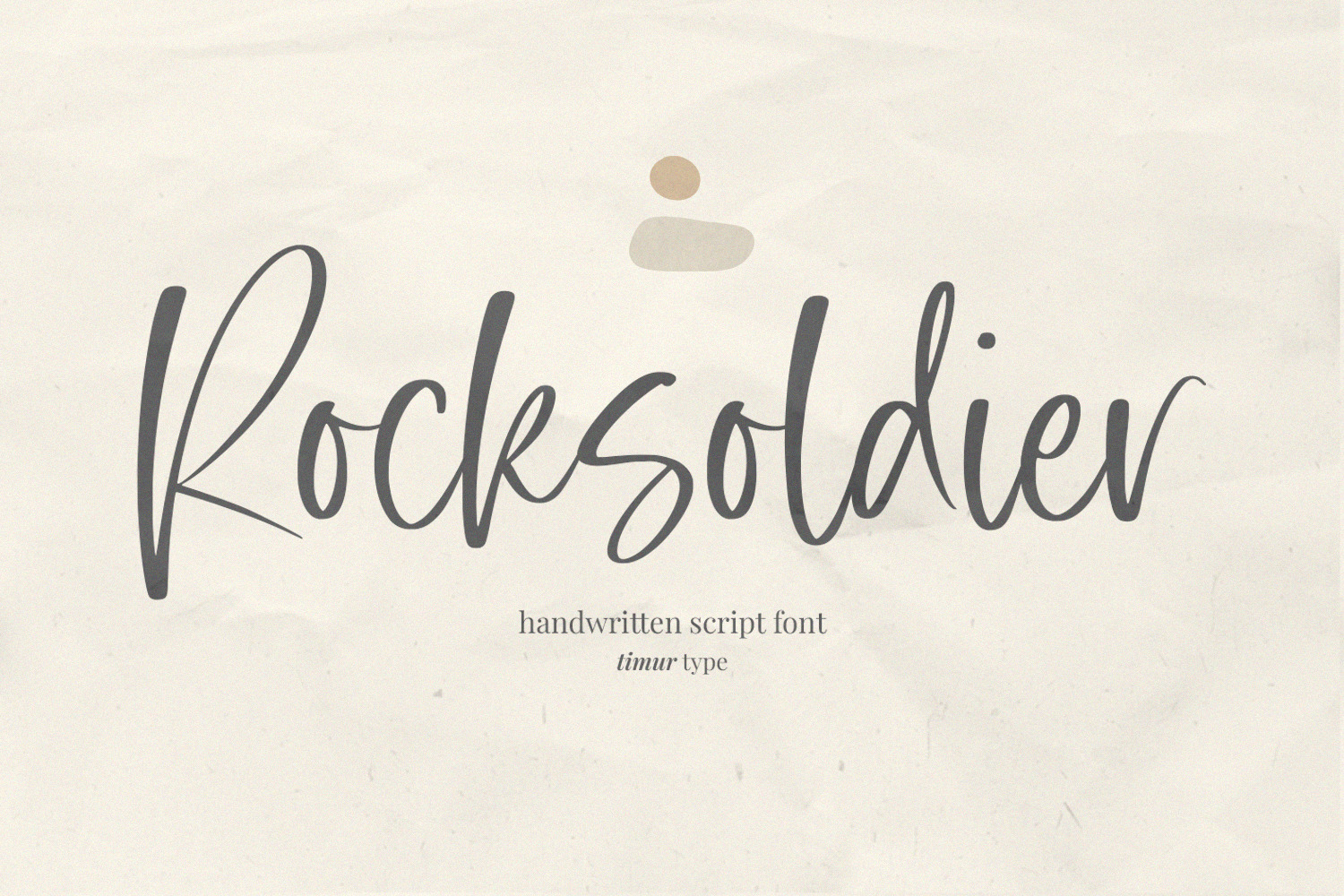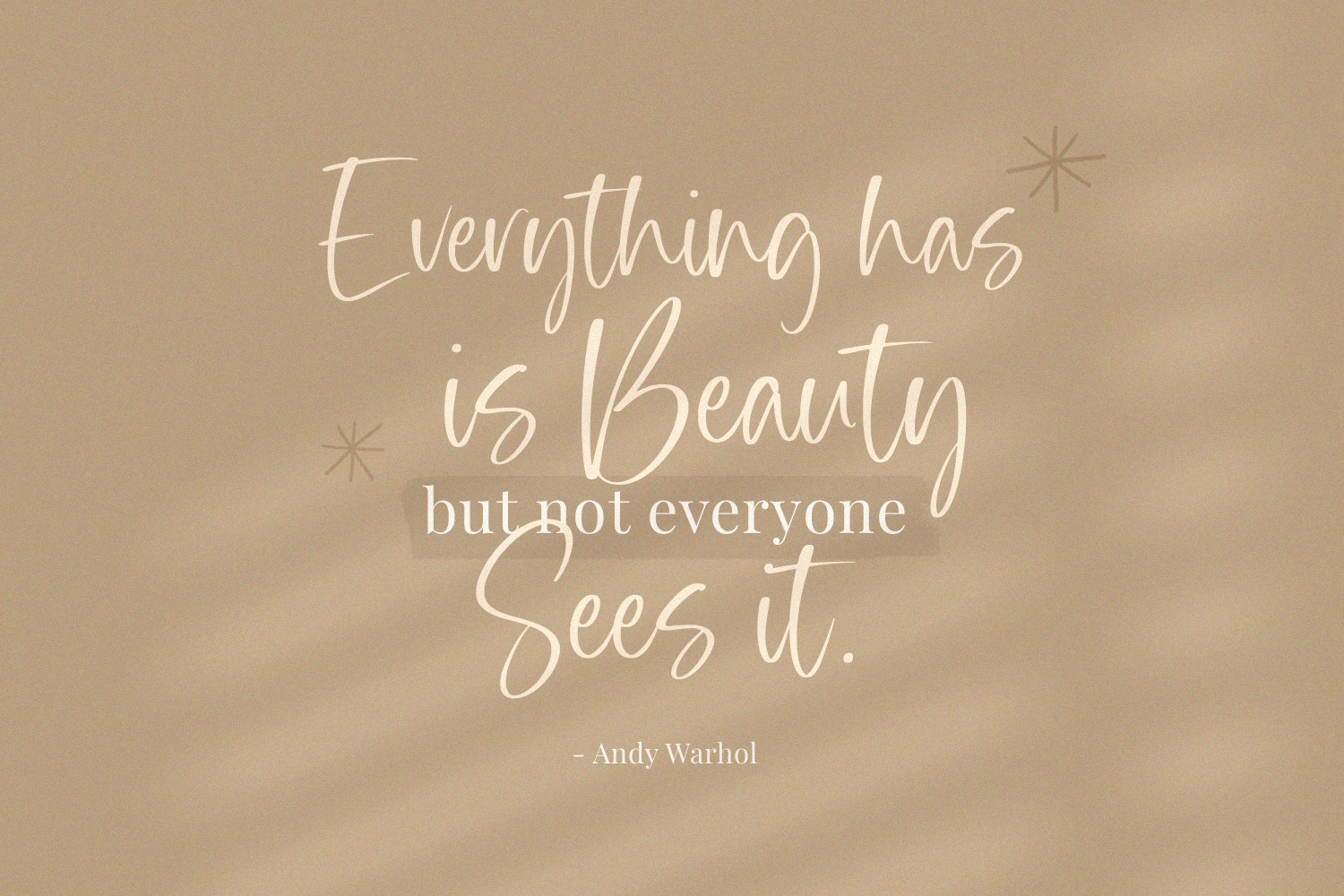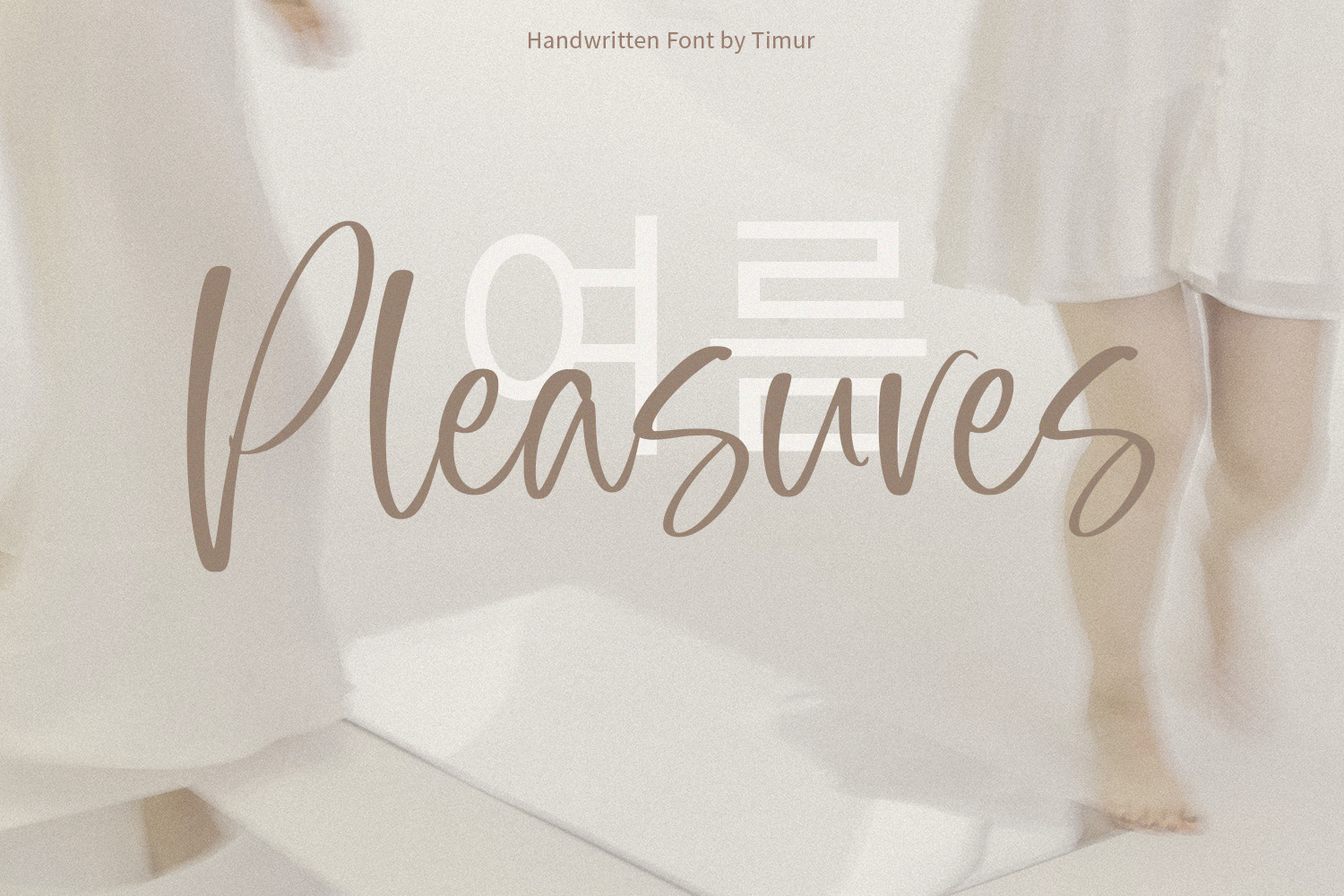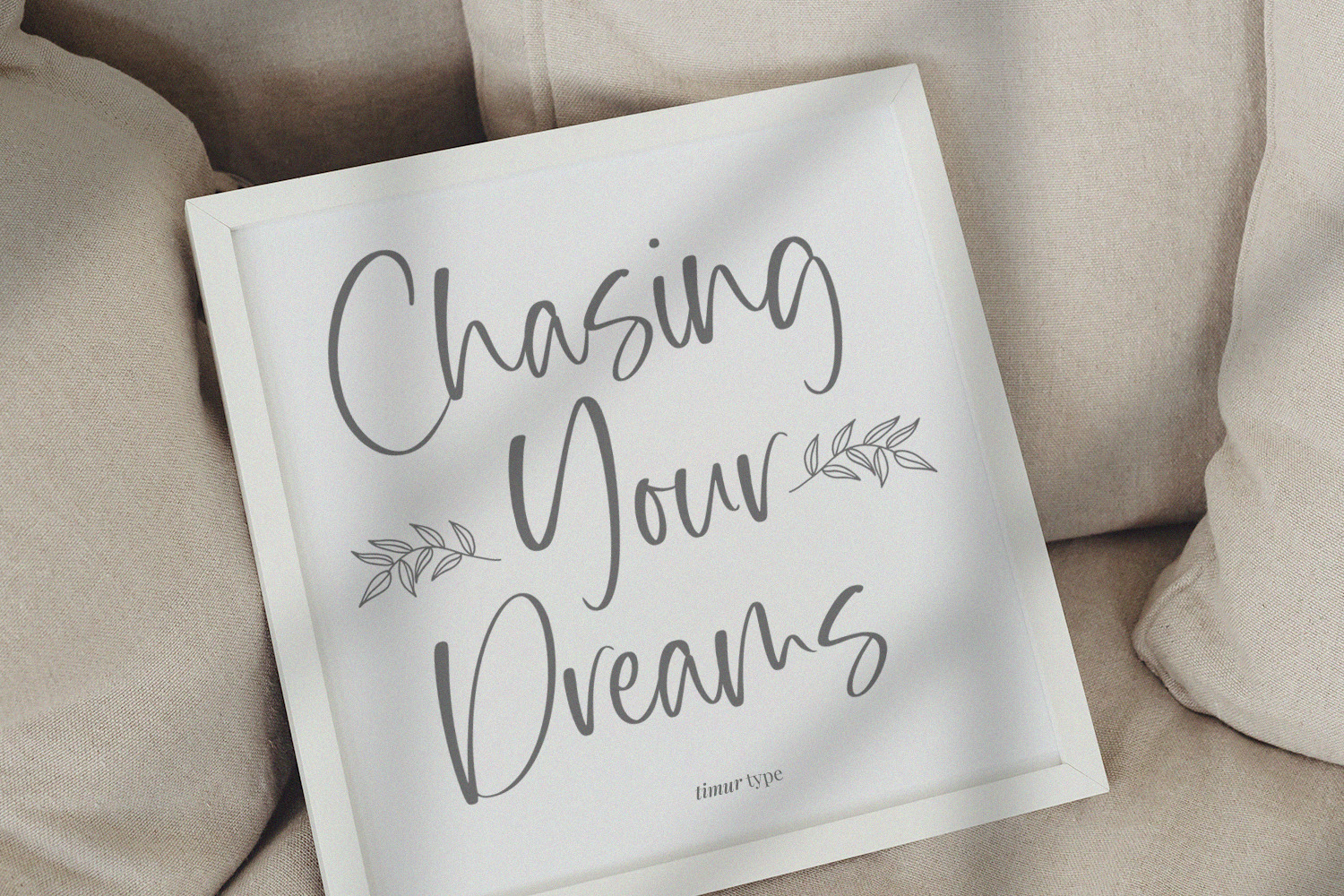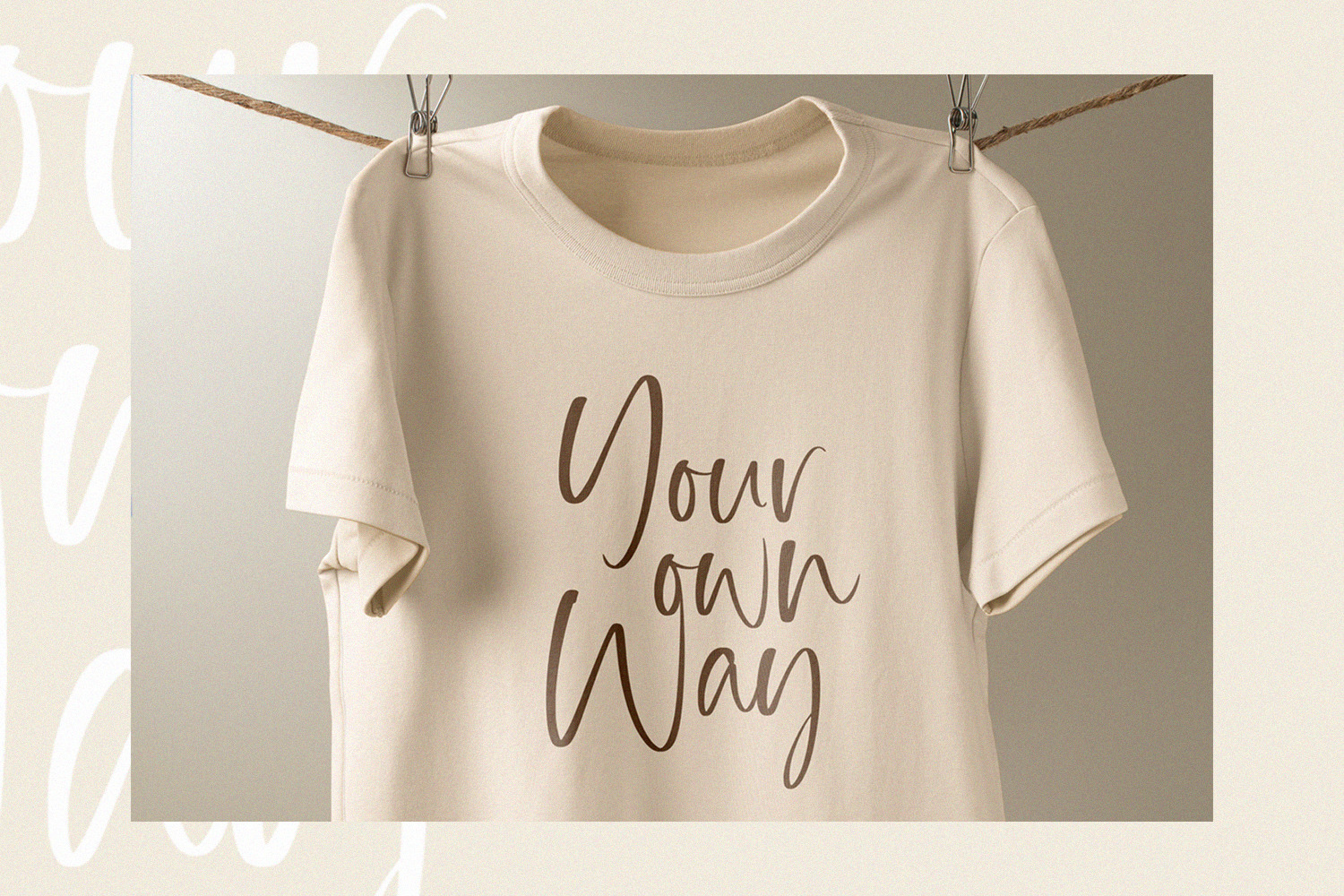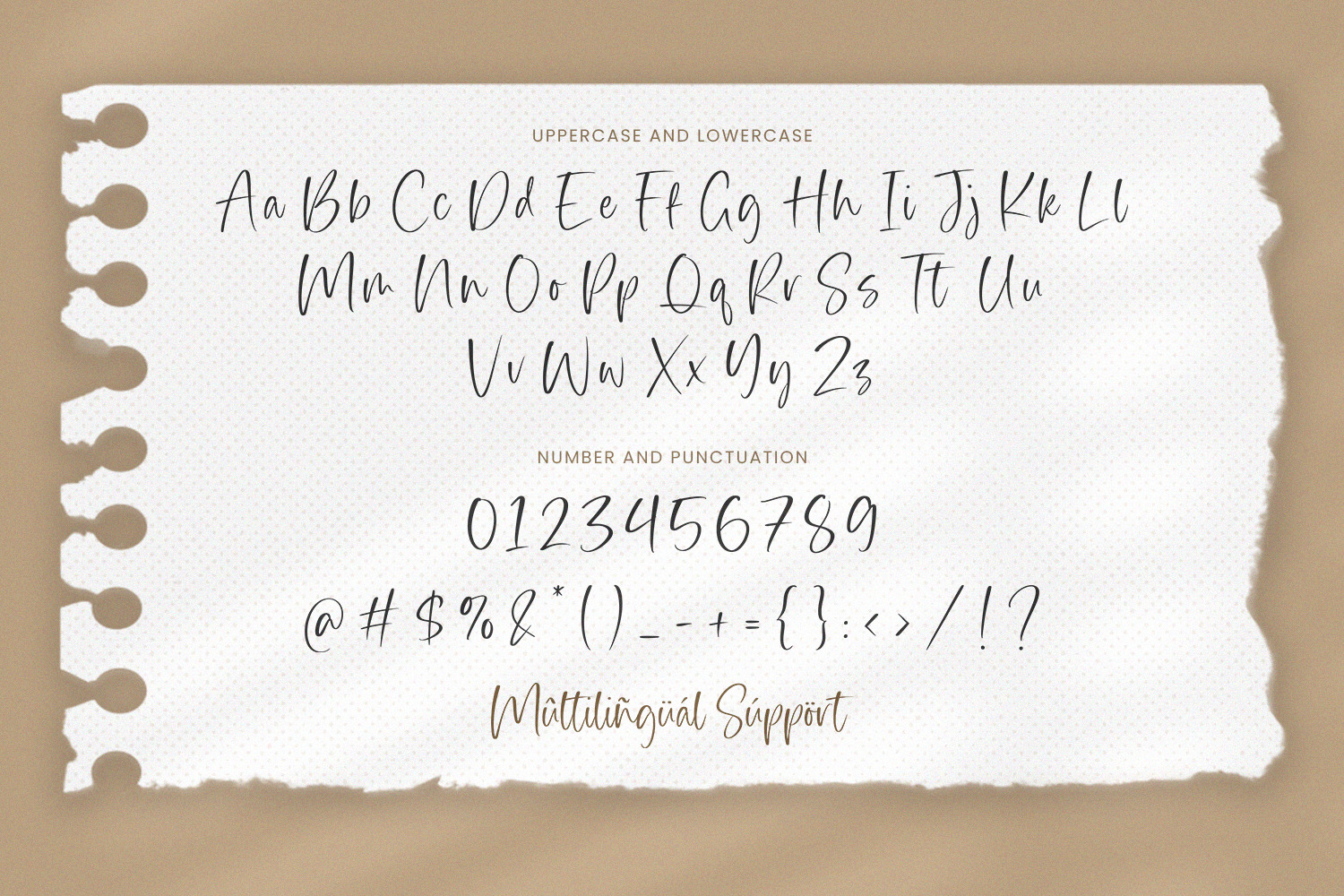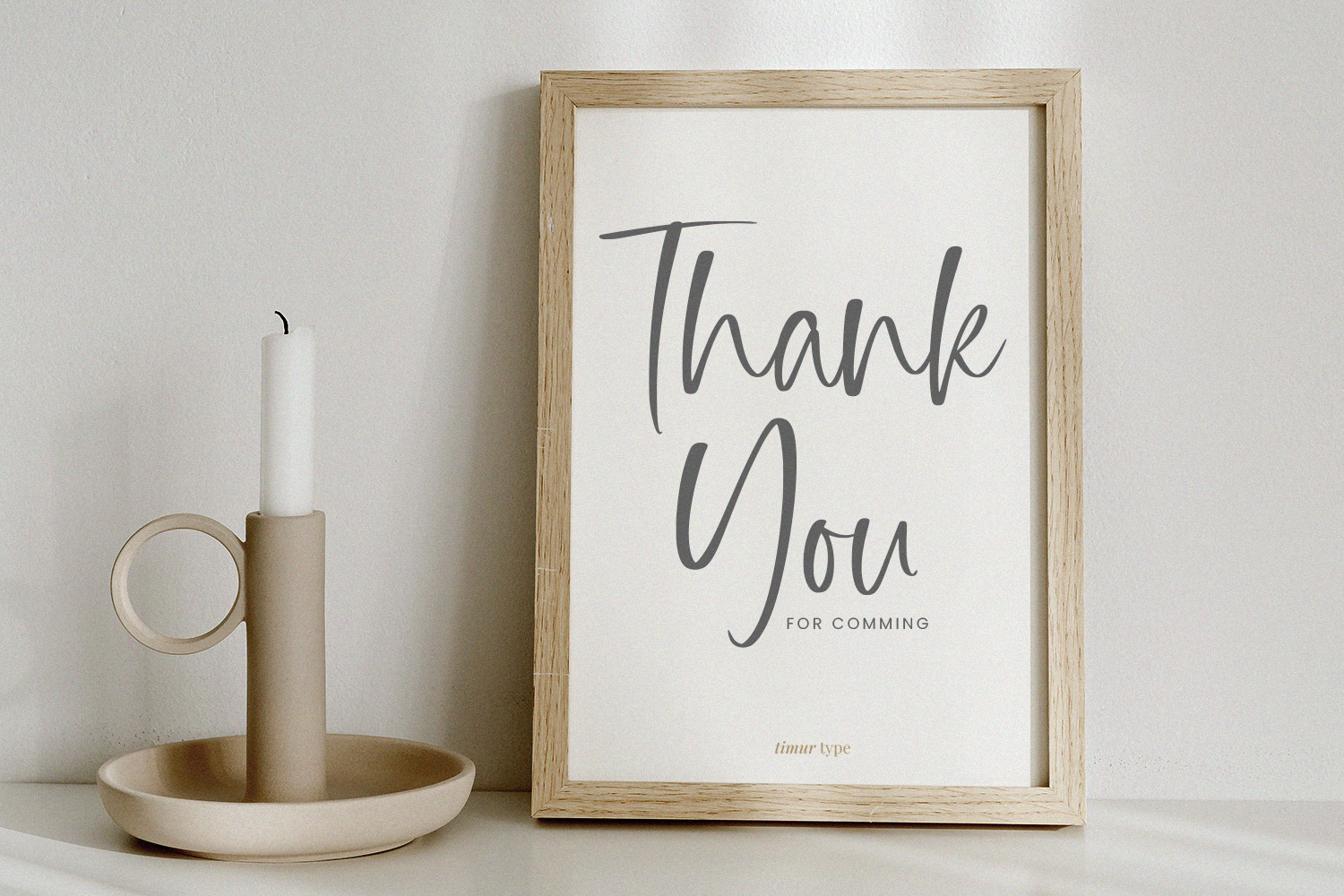
Rocksoldier - Handwritten Script Fonts
Introducing by Timur type
Rocksoldier A Handwritten Script Font , which was created with great care and specially created for you
This pack is perfect for greeting cards, branding, business cards, quotes, posters, stickers, blogs, logos, weddings, signage, packaging, birth announcements, photo overlays, wall art, quotes, printed materials, bags, t-shirts and much more !